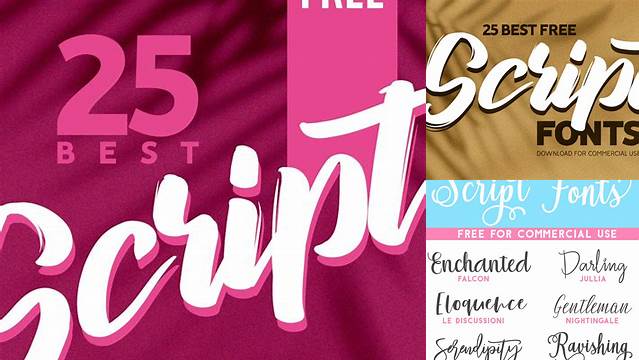
Hey guys! Ever found the perfect script font, only to realize you can't use it for your commercial projects? Ugh, the worst, right? Well, fret no more! This guide is all about finding those gorgeous script fonts that you can download for free and use without any licensing headaches. We're diving deep into the world of free fonts, specifically script fonts, and how you can snag them for your next big thing. From elegant wedding invitations to eye-catching logos, the possibilities are endless when you have the right font in your arsenal. So, let's get started and unlock some amazing typographic potential!
2. Top Websites for Free Script Fonts
Okay, now for the fun part: where to find these elusive free script fonts! There are tons of websites out there, but not all of them are created equal. Some are treasure troves of high-quality fonts, while others... well, let's just say they might leave you wanting more. Let's talk about some of the best websites to find amazing script fonts that you can download for free and use commercially. Websites like Google Fonts are a fantastic starting point. They have a huge library of fonts that are all open-source, meaning they're free to use for anything – personal or commercial. Another great option is Font Squirrel. They carefully curate their selection, so you know you're getting top-notch fonts. Plus, they have a handy filter that lets you search specifically for fonts with a commercial license. DaFont and Creative Fabrica also offer a wide range of options, but always double-check the license before using a font from these sites, as some may have restrictions. Exploring these platforms is like embarking on a treasure hunt, each click potentially revealing the perfect typeface to elevate your design. These websites not only offer a vast selection but also often provide additional resources like font pairings and design inspiration, making them invaluable tools for both seasoned designers and those just starting their creative journey. So, dive in and start exploring – your perfect script font is just a few clicks away!
3. High-Quality Script Fonts for Commercial Projects
Not all free script fonts are created equal, guys. Some are absolutely stunning, while others... well, they might look a little rough around the edges. When you're using fonts for commercial projects, you want something that looks professional and polished. This means looking for fonts that are well-designed, with clean lines and consistent letterforms. Avoid fonts that are overly quirky or difficult to read, especially for things like logos or website body text. Instead, focus on fonts that are elegant, legible, and versatile. Think about the overall aesthetic you're going for – are you looking for something classic and refined, or something more modern and playful? Once you have a sense of your style, you can start narrowing down your options. Remember, a high-quality script font can make a huge difference in the overall look and feel of your project. It's worth taking the time to find the perfect one that truly reflects your brand's personality and message. Investing in quality in this aspect can significantly enhance the perceived value and professionalism of your work, making it a cornerstone of your visual branding strategy. Selecting high-caliber fonts ensures that your designs not only look beautiful but also communicate effectively, leaving a lasting impression on your audience.
5. Using Script Fonts in Graphic Design Projects
Alright, you've got your beautiful script font installed – now let's talk about how to actually use it in your graphic design projects. Script fonts are fantastic for adding a touch of elegance, personality, and flair to your designs. But, like any design element, they need to be used thoughtfully. One of the key things to keep in mind is readability. Script fonts can be gorgeous, but some are harder to read than others, especially in large blocks of text. So, it's generally best to use them for headings, logos, or other short bursts of text where you want to make a statement. Think about using them for wedding invitations, branding materials, or even social media graphics. When pairing a script font with other fonts, try to create a contrast. A classic sans-serif font like Helvetica or Arial can be a great complement to a more decorative script font. This creates a visual hierarchy and makes your design more balanced and interesting. Don't be afraid to experiment and play around with different combinations until you find something that feels just right. The art of typography is all about creating visual harmony, and the right script font can be the linchpin that brings your entire design together. By mastering the nuances of script font application, you can elevate your graphic design projects from mere visuals to compelling visual narratives.
6. Script Fonts for Logos and Branding
When it comes to logos and branding, script fonts can be a powerful tool. They can instantly convey a sense of elegance, sophistication, or even playfulness, depending on the font you choose. A well-chosen script font can become a key part of your brand's identity, helping you stand out from the crowd. Think about some of the most iconic brands that use script fonts in their logos – companies like Coca-Cola or Disney. Their logos are instantly recognizable, and the script font plays a huge role in that. Of course, using a script font in your logo isn't right for every brand. It's important to consider your target audience and the overall message you want to convey. If you're going for a more modern or minimalist look, a script font might not be the best choice. But if you want to create a brand that feels personal, approachable, and maybe even a little bit fancy, a script font can be perfect. Just make sure the font you choose is legible, even at small sizes, and that it reflects the overall personality of your brand. Selecting the right font is akin to choosing the perfect voice for your brand, setting the tone and establishing a unique presence in the market. The use of script fonts in logos and branding is a strategic decision that can significantly impact brand perception and recognition.
7. Script Fonts for Website Design
Using script fonts in website design can be a bit of a balancing act. On one hand, they can add a touch of personality and visual interest to your site. On the other hand, they can also make your website harder to read if they're not used carefully. The key is to use them sparingly and strategically. Think about using a script font for your website's headings or logo, but avoid using it for large blocks of body text. Remember, readability is crucial when it comes to website design. You want your visitors to be able to easily read and understand your content. So, stick to more legible fonts for the main text of your site. When choosing a script font for your website, make sure it's web-safe, meaning it will display correctly on most browsers and devices. Google Fonts is a great resource for web-safe fonts, and they have a wide selection of script fonts to choose from. Also, consider the overall design of your website. The script font you choose should complement your website's color scheme, layout, and overall aesthetic. The goal is to create a cohesive and visually appealing design that's both beautiful and user-friendly. Integrating script fonts into website design is a delicate art that requires a keen eye for balance and usability. The strategic application of these fonts can transform a website from a functional platform into an engaging and memorable digital experience.
8. Pairing Script Fonts with Other Fonts
Pairing fonts is a crucial skill in graphic design, and it's especially important when you're working with script fonts. Because script fonts are often more decorative and eye-catching, they need to be paired with other fonts that complement them without overpowering them. A classic approach is to pair a script font with a clean, simple sans-serif font. This creates a nice contrast and helps to balance the overall design. Think about pairing a flowing, elegant script with a geometric sans-serif like Montserrat or Lato. Another option is to pair a script font with a serif font, but this can be a little trickier. You want to make sure the serif font isn't too similar to the script font, or the design can look cluttered. A good rule of thumb is to choose a serif font that has a different personality than the script font. For example, you could pair a delicate script with a bold, sturdy serif like Merriweather. The key to successful font pairing is experimentation. Don't be afraid to try different combinations until you find something that feels just right. And remember, less is often more. It's usually best to stick to two or three fonts in a single design to avoid overwhelming the viewer. Mastering the art of font pairing is akin to composing a symphony, where each typeface plays a distinct role in creating a harmonious and visually captivating composition.
9. Free vs. Premium Script Fonts
Okay, let's talk about the age-old question: free vs. premium fonts. When it comes to script fonts, there are tons of free options out there, but there are also some amazing premium fonts that are worth considering. So, which should you choose? Well, it really depends on your needs and budget. Free script fonts can be a great option if you're just starting out or if you have limited resources. There are some fantastic free fonts available, especially on sites like Google Fonts and Font Squirrel. However, premium fonts often offer a higher level of quality and versatility. They may have more weights and styles, more extensive language support, and more refined design details. Plus, when you purchase a premium font, you're supporting the font designer, which helps them continue to create amazing fonts. If you're working on a major project or if you need a font that's truly unique and professional, a premium font might be worth the investment. But if you're on a tight budget, don't worry – there are still plenty of great free script fonts out there to choose from. The key is to carefully evaluate your project requirements and weigh the pros and cons of each option before making a decision. Navigating the free versus premium font landscape is about aligning your creative vision with practical considerations, ensuring that your font choices enhance your work without compromising your budget.
10. Best Script Fonts for Wedding Invitations
Planning a wedding? Script fonts are a perfect choice for wedding invitations. They add a touch of romance, elegance, and sophistication to your stationery. When choosing a script font for your wedding invitations, think about the overall style of your wedding. Are you going for a classic and traditional look, or something more modern and bohemian? There are script fonts to suit every style. For a classic wedding, consider elegant and flowing scripts like Brush Script MT or Edwardian Script ITC. These fonts have a timeless feel and are perfect for formal invitations. If you're planning a more modern wedding, you might want to choose a script font that's a little more contemporary and playful. Fonts like Hello Script or Playlist Script can add a touch of personality to your invitations. Remember, readability is key, even for wedding invitations. Make sure the script font you choose is easy to read, especially for important details like the date, time, and location. It's also a good idea to pair your script font with a simple and legible sans-serif or serif font for the body text of your invitations. This will ensure that your invitations are both beautiful and functional. Selecting the right script font for wedding invitations is about capturing the essence of the celebration, transforming simple paper into cherished keepsakes that reflect the couple's unique love story.
11. Script Fonts for Calligraphy and Hand-Lettering Styles
If you love calligraphy and hand-lettering, script fonts can be a fantastic resource. While nothing quite beats the beauty of true hand-lettering, script fonts can help you achieve a similar look without having to painstakingly draw each letter yourself. There are many script fonts that are designed to mimic the look of calligraphy and hand-lettering. These fonts often have flowing lines, elegant swashes, and a natural, hand-drawn feel. They're perfect for adding a personal touch to your designs. When choosing a script font for a calligraphy or hand-lettering style, look for fonts that have varying stroke widths and natural-looking imperfections. These details will help to make the font look more authentic and less like a generic typeface. You can also experiment with adding your own hand-drawn elements to a script font to create a truly unique design. Try adding extra flourishes, connecting letters, or even slightly altering the shapes of the letters. With a little creativity, you can use script fonts to create beautiful, hand-lettered designs that look like they were created with a pen and ink. Utilizing script fonts as a foundation for calligraphy and hand-lettering styles opens up a realm of creative possibilities, allowing designers to blend digital precision with the organic charm of traditional techniques.
12. Monoline Script Fonts for a Modern Look
Looking for a script font with a modern twist? Monoline script fonts might be just what you need. Unlike traditional script fonts, which have varying stroke widths, monoline scripts have strokes that are all the same thickness. This gives them a clean, contemporary look that's perfect for modern designs. Monoline script fonts are often used in logos, branding materials, and website designs. They have a minimalist aesthetic that's both stylish and legible. When choosing a monoline script font, consider the overall personality you want to convey. Some monoline scripts are elegant and refined, while others are more playful and casual. Fonts like Playlist Script and Stay Classy are popular choices for a modern monoline look. Monoline script fonts are versatile and can be paired with a variety of other fonts. They work well with both sans-serif and serif fonts, making them a great option for creating balanced and visually appealing designs. If you're looking for a script font that's both trendy and timeless, a monoline script is definitely worth considering. The consistent stroke width lends a sense of sophistication and modernity, making these fonts a versatile choice for a wide range of design applications. Embracing the simplicity of monoline script fonts allows designers to create impactful visual statements with a minimalist flair.
13. Bold Script Fonts for Impactful Headlines
Need a font that will grab attention? Bold script fonts are the way to go! These fonts have a strong, assertive presence that's perfect for impactful headlines, posters, and other designs where you want to make a statement. Bold script fonts are often used in advertising, branding, and editorial design. They have a confident and eye-catching look that can help your message stand out. When choosing a bold script font, think about the overall tone you want to convey. Some bold scripts are playful and energetic, while others are more sophisticated and refined. Fonts like Black Jack and Pacifico are popular choices for bold script headlines. Bold script fonts work well when paired with simpler, more legible fonts for body text. This creates a visual hierarchy and ensures that your design is both eye-catching and easy to read. Just be careful not to overuse bold script fonts, as they can become overwhelming if they're not used sparingly. When used strategically, however, a bold script font can be a powerful tool for creating designs that truly stand out. The inherent boldness of these fonts commands attention, making them an invaluable asset for designers aiming to create impactful visual communication.
14. Light and Elegant Script Fonts for Delicate Designs
On the other end of the spectrum, we have light and elegant script fonts. These fonts are perfect for designs that need a touch of delicacy and refinement. They're often used in wedding invitations, stationery, and other designs that call for a sophisticated aesthetic. Light and elegant script fonts have thin, graceful strokes and a flowing, almost ethereal quality. They're perfect for adding a touch of romance and femininity to your designs. When choosing a light and elegant script font, look for fonts that are well-balanced and legible, even at small sizes. You want a font that's beautiful but also functional. Fonts like Belinda Script and Chopin Script are popular choices for light and elegant designs. Light script fonts pair well with other delicate fonts, such as thin sans-serifs or serif fonts with a classic feel. They can also be used effectively as a contrasting element alongside bolder, more assertive fonts. The key is to create a harmonious balance that reflects the overall tone of your design. The ethereal beauty of light and elegant script fonts lends an air of sophistication and grace, making them the perfect choice for designs that whisper rather than shout.
15. Cursive Script Fonts for a Handwritten Feel
If you're going for a handwritten feel in your designs, cursive script fonts are the way to go. These fonts mimic the flowing, connected strokes of cursive handwriting, giving your designs a personal and intimate touch. Cursive script fonts are often used in logos, branding materials, and greeting cards. They have a warm and inviting quality that can help you connect with your audience on a more personal level. When choosing a cursive script font, look for fonts that have a natural, organic feel. Fonts that have slight variations in stroke width and letter connections will look more authentic than fonts that are too perfect and uniform. Fonts like Great Vibes and Alex Brush are popular choices for a handwritten cursive look. Cursive script fonts can be paired with a variety of other fonts, depending on the overall style you're going for. They work well with both sans-serif and serif fonts, but it's important to choose a pairing that's both visually appealing and legible. The organic flow of cursive script fonts evokes a sense of intimacy and authenticity, making them a valuable tool for designers seeking to inject a personal touch into their creations.
16. Vintage and Retro Script Fonts for a Nostalgic Touch
Want to add a nostalgic touch to your designs? Vintage and retro script fonts are the perfect way to do it! These fonts evoke the styles of past eras, from the Art Deco glamour of the 1920s to the groovy vibes of the 1970s. Vintage and retro script fonts are often used in branding, advertising, and packaging designs. They can help you create a sense of authenticity and nostalgia, reminding people of simpler times. When choosing a vintage or retro script font, think about the specific era you want to evoke. Fonts with sharp, geometric lines are reminiscent of the Art Deco era, while fonts with rounded, flowing strokes are more typical of the mid-century modern style. Fonts like Lobster and Bebas Neue are popular choices for vintage and retro designs. Vintage script fonts pair well with other vintage-inspired fonts, as well as with clean, modern sans-serif fonts. The key is to create a balance between the old and the new, so that your design feels both timeless and contemporary. The evocative power of vintage and retro script fonts allows designers to transport their audience to another era, adding a layer of depth and meaning to their visual narratives.
17. Modern and Contemporary Script Fonts
For a sleek and stylish look, modern and contemporary script fonts are an excellent choice. These fonts break away from traditional script styles, offering a fresh and updated aesthetic. They often feature clean lines, unique letterforms, and a minimalist approach. Modern script fonts are versatile and can be used in a variety of design projects, from logos and branding to websites and social media graphics. They're perfect for businesses that want to project a forward-thinking and sophisticated image. When selecting a modern script font, consider the overall personality you want to convey. Some fonts are elegant and refined, while others are more playful and edgy. Pairing these fonts with a simple sans-serif can create a striking contrast and enhance readability. Experiment with different weights and sizes to achieve the desired effect. The clean and refined aesthetic of modern script fonts lends a touch of sophistication to any design, making them a staple in contemporary typography.
18. Fun and Playful Script Fonts for Creative Projects
Inject some personality into your designs with fun and playful script fonts. These fonts are perfect for projects that need a touch of whimsy and creativity. They often feature unique letterforms, exaggerated swashes, and a hand-drawn feel. Playful script fonts are ideal for children's books, party invitations, and other lighthearted designs. They can also be used in branding to create a friendly and approachable image. When choosing a playful script font, look for fonts that are easy to read and visually engaging. Consider using bright colors and bold layouts to complement the font's playful nature. Pairing these fonts with a simple sans-serif or a clean serif can help balance the design and ensure readability. The lighthearted nature of fun and playful script fonts can bring a sense of joy and creativity to any project, making them a favorite among designers and audiences alike.
19. Formal and Elegant Script Fonts for Special Occasions
When it comes to special occasions, such as weddings and formal events, formal and elegant script fonts are a classic choice. These fonts exude sophistication and grace, adding a touch of luxury to any design. They often feature delicate curves, flowing lines, and intricate details. Elegant script fonts are perfect for invitations, announcements, and other formal stationery. They can also be used in branding to create a high-end and refined image. When selecting a formal script font, consider the overall tone of the event. Traditional weddings may call for a classic script, while more modern events might benefit from a contemporary take on formal typography. Pair these fonts with a simple serif or sans-serif for a balanced and polished look. The timeless elegance of formal script fonts makes them an indispensable tool for creating memorable designs that capture the essence of special moments.
20. Script Fonts with Swashes and Flourishes
Add a touch of drama and flair to your designs with script fonts with swashes and flourishes. These decorative elements extend from the letters, creating an elegant and eye-catching effect. Swashes and flourishes can enhance the overall aesthetic of a font, making it perfect for logos, headings, and other display purposes. When using script fonts with swashes, it's important to use them sparingly to avoid overwhelming the design. Focus on key letters or words that you want to emphasize. Consider using these fonts for initial caps or to add a decorative touch to the end of a word. Pairing them with a simpler font can help balance the design and ensure readability. The graceful curves and artistic flair of script fonts with swashes and flourishes can elevate any design, adding a touch of sophistication and visual interest.
21. Layered Script Fonts for Depth and Dimension
Layered script fonts offer a unique way to add depth and dimension to your designs. These fonts consist of multiple layers that can be stacked on top of each other to create various effects, such as shadows, outlines, and highlights. Layered script fonts are perfect for logos, posters, and other display purposes where you want to make a bold statement. They allow you to customize the look of the font by adjusting the colors and styles of each layer. When working with layered fonts, it's important to choose a color palette that complements the overall design. Experiment with different layer combinations to achieve the desired effect. These fonts can add a professional and polished look to your projects, setting them apart from the competition. The versatility of layered script fonts empowers designers to create unique and visually striking typography that commands attention.
22. SVG Script Fonts for Scalable Graphics
SVG script fonts are a game-changer for designers who need scalable graphics. Unlike traditional fonts, which can lose quality when resized, SVG fonts maintain their sharpness and clarity at any size. This makes them ideal for logos, website graphics, and other designs that need to be displayed on various devices and platforms. SVG fonts are also vector-based, which means they can be easily edited and customized. You can change the colors, stroke widths, and other attributes without affecting the font's overall quality. When using SVG script fonts, it's important to ensure that your design software supports this format. Many modern design programs, such as Adobe Illustrator and Sketch, offer excellent support for SVG fonts. The scalability and flexibility of SVG script fonts make them an invaluable tool for creating professional and adaptable designs.
23. Color Script Fonts for Vibrant Typography
Inject some color into your typography with color script fonts. These fonts include built-in color information, allowing you to create vibrant and eye-catching designs without having to add color manually. Color script fonts are perfect for logos, posters, and social media graphics where you want to make a bold statement. They can also be used to add a playful and whimsical touch to children's books and other lighthearted designs. When using color fonts, it's important to choose a color palette that complements the overall design. Consider using contrasting colors to create visual interest or sticking to a monochromatic palette for a more subtle effect. Not all design software supports color fonts, so make sure your program is compatible before using them. The inherent vibrancy of color script fonts allows designers to create captivating typography that instantly grabs attention and adds a layer of visual richness to their projects.
24. Script Fonts with Ligatures and Alternate Characters
Enhance the elegance and sophistication of your designs with script fonts with ligatures and alternate characters. Ligatures are special characters that combine two or more letters into a single glyph, creating a more seamless and fluid appearance. Alternate characters offer variations on standard letters, allowing you to customize the look of your text and add a unique touch. Script fonts with ligatures and alternates are perfect for logos, invitations, and other designs where you want to create a polished and professional look. They add a level of detail and refinement that sets your typography apart. When using these fonts, experiment with different ligatures and alternates to find the combinations that work best for your design. These subtle enhancements can significantly elevate the visual appeal of your text, making it more refined and captivating. The nuanced beauty of script fonts with ligatures and alternate characters allows designers to create typography that is both aesthetically pleasing and highly customizable.
25. Web-Safe Script Fonts for Online Use
When designing for the web, it's crucial to use web-safe script fonts to ensure that your text displays correctly across different browsers and devices. Web-safe fonts are those that are commonly installed on most computers, reducing the need for users to download additional fonts. While the selection of web-safe script fonts is more limited than the overall range of script fonts, there are still plenty of beautiful and legible options available. Popular web-safe script fonts include Brush Script MT, Cursive, and Lucida Handwriting. When using web-safe fonts, it's important to consider readability and legibility. Avoid using script fonts for large blocks of text, as they can be difficult to read on screen. Instead, use them for headings, logos, and other display elements where you want to add a touch of personality. The reliability and cross-platform compatibility of web-safe script fonts make them an essential consideration for web designers seeking to maintain a consistent and visually appealing user experience.
26. Mobile-Friendly Script Fonts for Responsive Design
In today's mobile-first world, it's essential to use mobile-friendly script fonts in your designs. These fonts are optimized for display on small screens and ensure that your text remains legible and visually appealing on smartphones and tablets. When choosing script fonts for responsive design, consider factors such as font size, line height, and letter spacing. Avoid using fonts that are too thin or too ornate, as they can be difficult to read on small screens. Instead, opt for fonts that are clear, well-balanced, and easy to recognize. Testing your designs on different devices is crucial to ensure that your script fonts are displaying correctly. The clarity and legibility of mobile-friendly script fonts are paramount in delivering a seamless and engaging user experience across all devices.
27. Script Fonts for Social Media Graphics
Social media graphics are a great way to showcase your brand's personality, and script fonts can help you achieve just that. These fonts can add a touch of elegance, playfulness, or sophistication to your posts, depending on the style you choose. When using script fonts for social media, consider the overall tone of your brand and the message you want to convey. A formal script might be perfect for a luxury brand, while a more casual script could be ideal for a fun and approachable company. Remember to prioritize readability, as social media users often scroll through content quickly. Use script fonts sparingly for headings and short phrases, and pair them with a legible sans-serif for body text. The expressive nature of script fonts makes them a powerful tool for crafting engaging and visually appealing social media content that resonates with your audience.
28. Script Fonts for Print vs. Digital Media
Choosing the right script font for your project depends largely on whether you're designing for print or digital media. Print designs allow for greater flexibility in font choice, as you don't have to worry about browser compatibility or screen resolution. However, it's still important to consider factors such as readability and paper texture. For digital media, web-safe fonts are often the best option to ensure consistent display across different devices. You also need to consider screen resolution and font rendering, which can affect how your text appears on screen. In general, it's best to use simpler and more legible script fonts for digital designs, and save the more ornate and decorative fonts for print projects. Understanding the nuances of typography in print and digital media is essential for creating visually effective designs that achieve their intended purpose.
29. The Future of Script Fonts in Design
The world of typography is constantly evolving, and script fonts are no exception. We're seeing a growing trend towards more modern and innovative script fonts, with designers pushing the boundaries of traditional styles. Variable fonts, which allow for greater flexibility in font customization, are also becoming increasingly popular. These fonts can be adjusted in terms of weight, width, and other parameters, giving designers more control over their typography. As technology advances, we can expect to see even more exciting developments in the world of script fonts. The fusion of technology and creativity is poised to unlock new possibilities in script font design, shaping the future of typography and visual communication.
30. Resources for Learning More About Script Typography
Want to delve deeper into the world of script typography? There are tons of great resources available online and in print. Websites like Typewolf and Fonts in Use offer valuable insights into font pairing and typography trends. Books like "The Elements of Typographic Style" by Robert Bringhurst are considered classics in the field. Online courses and tutorials can provide hands-on training in typography principles and font selection. Exploring these resources can enhance your understanding of typography, empowering you to make informed design decisions and create visually stunning compositions. Continuous learning and exploration are key to mastering the art of script typography and staying ahead in the ever-evolving design landscape.